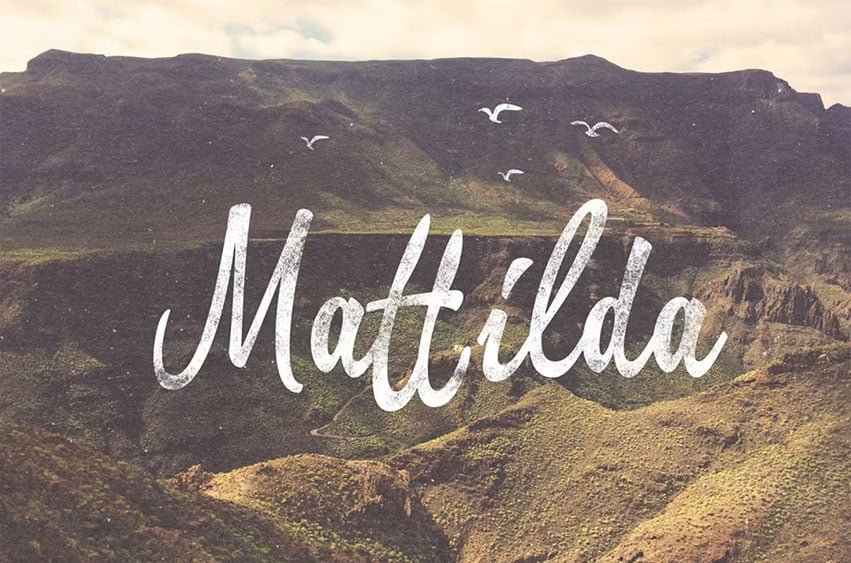
Mattilda Font is a script typeface inspired by free style brush lettering which is great to use in urban and free design styles. It is bold, fun and attractive. You can make your own brush-lettering logo, wedding invitation, greeting cards, etc.